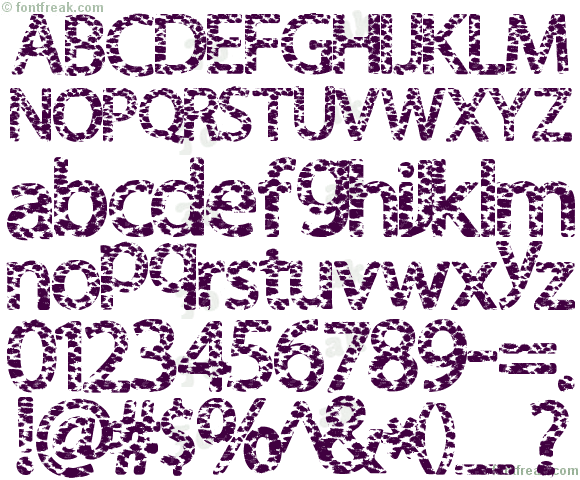
FurHandcuffs
About FurHandcuffs
FurHandcuffs is a distinctive display font created by Xerographer Fonts in 2012, characterized by its playful and quirky style. This font falls into the decorative category, showcasing a unique visual appeal that sets it apart from traditional typefaces. The letters are designed with a textured, fur-like pattern, giving them a whimsical, organic feel that captures attention. The stroke weight is moderately bold, providing a strong presence while maintaining legibility. The spacing between characters is well-balanced, allowing for seamless reading without compromising the font’s artistic flair.
FurHandcuffs is particularly suited for a variety of creative applications. It can elevate wedding invitations with its charming aesthetics, making them feel personal and memorable. Similarly, it works excellently for movie posters, especially in genres like comedy or family films, where a light-hearted vibe is essential. Restaurant menus can benefit from this font, especially for establishments focused on casual dining or unique culinary experiences, as it adds a touch of character. Additionally, it can be effectively used in promotional materials for creative businesses, enhancing the overall design with a fun twist that reflects the brand's personality.
The target audience for FurHandcuffs includes graphic designers, small business owners, and content creators looking to infuse their projects with a sense of playfulness and creativity. Its unique style resonates with those seeking to make a memorable impression through their designs.
What makes the FurHandcuffs font stand out is its ability to combine whimsy with readability, allowing designers to convey a fun message without sacrificing clarity. For those interested in enhancing their design toolkit, the FurHandcuffs font free download offers an excellent opportunity to incorporate this striking typeface into various projects.